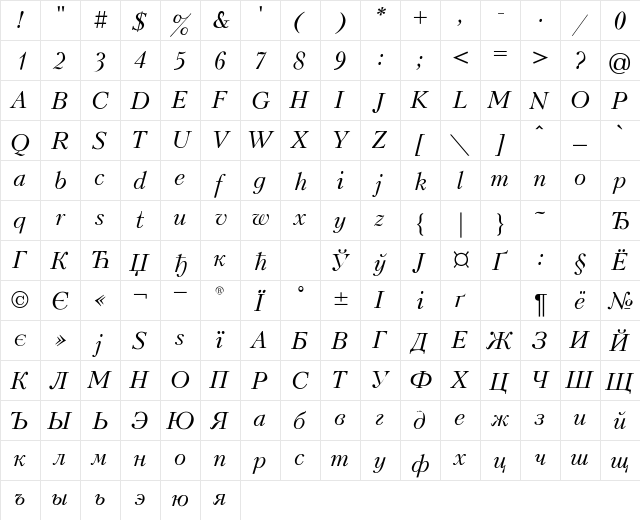
Kudriashov Italic Font Preview
Kudriashov Italic
Kudriashov Italic Font Details
Design Context for Kudriashov Typeface
Kudriashov takes a measured approach to typography — its balanced proportions and neutral character make it a reliable workhorse for both digital and print work. Its italic angle brings a sense of urgency and motion to the letterforms.